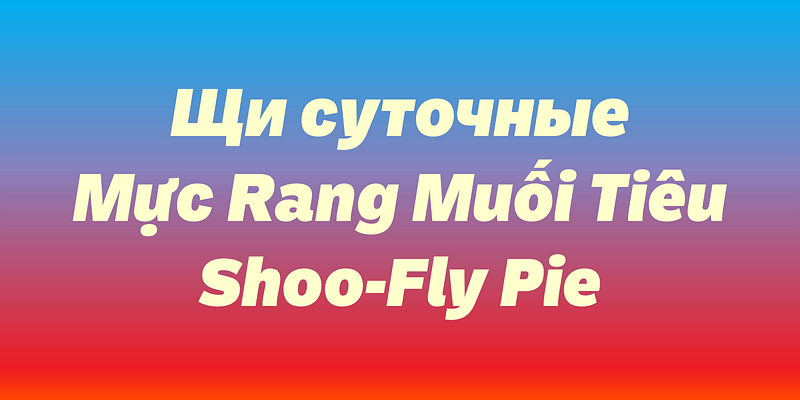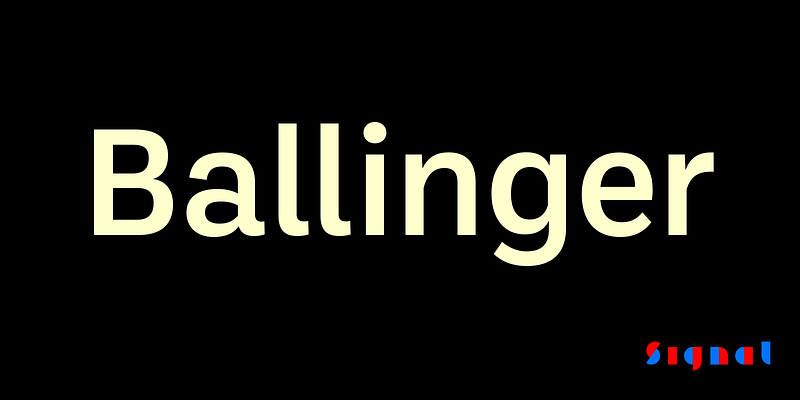
Ballinger is a plain, simple tool for clear communication. It includes eight weights with matching italics, plus condensed and monospaced versions. Letters like a, e, and s open out gradually as they move from Thin to Black. Italics incorporate subtle ogee curves to lend warmth and energy to the page or screen. Supports Cyrillic and Vietnamese. Also available in Condensed, X-Condensed, and monospaced versions.